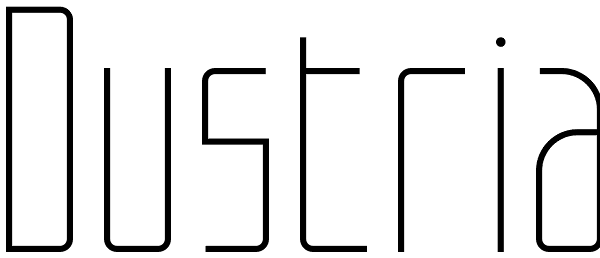
Dustria
Dustria is specially designed with square proportions which makes the project very readable in a wide range of sizes. It has an aspect of unique futuristic look and is a very practical choice for modern headlines, branding, title.